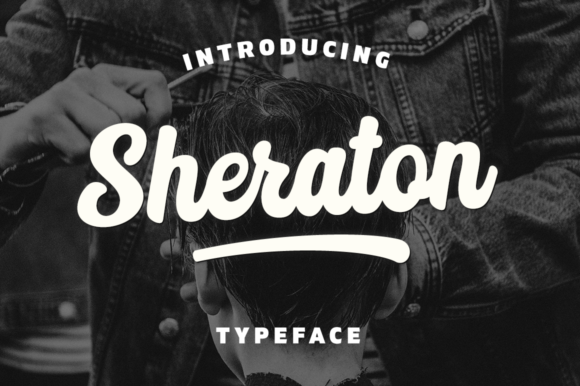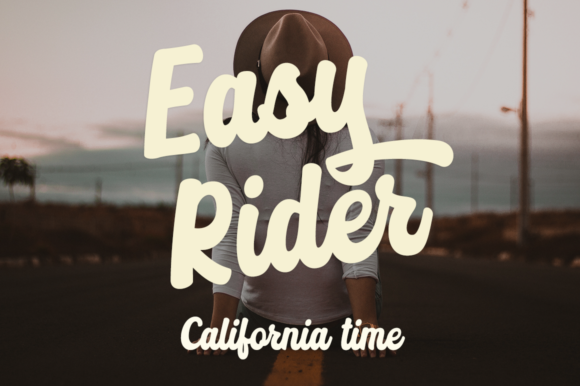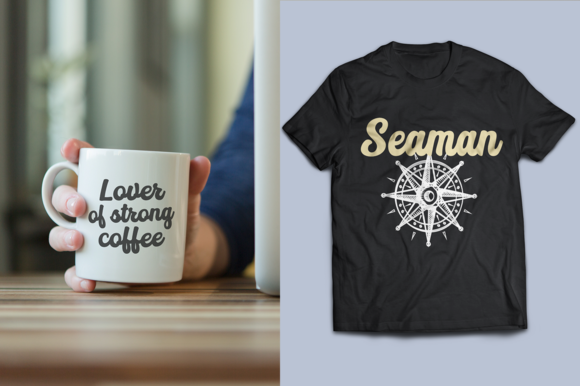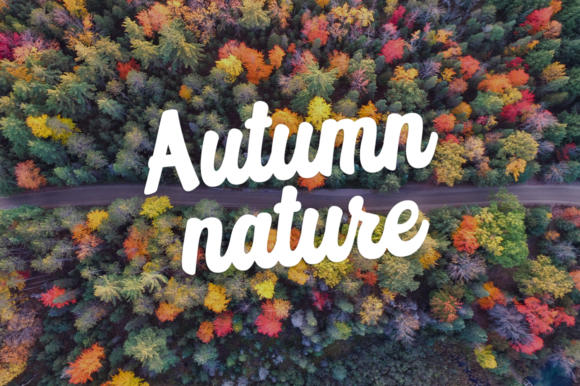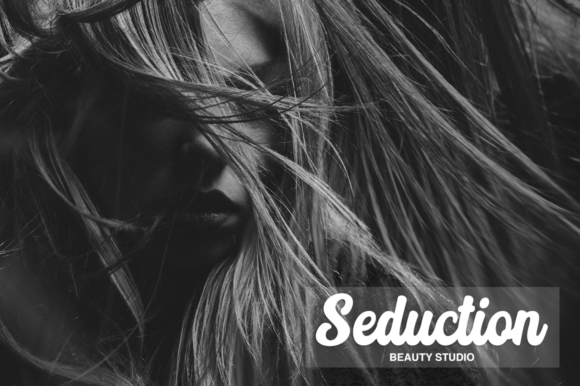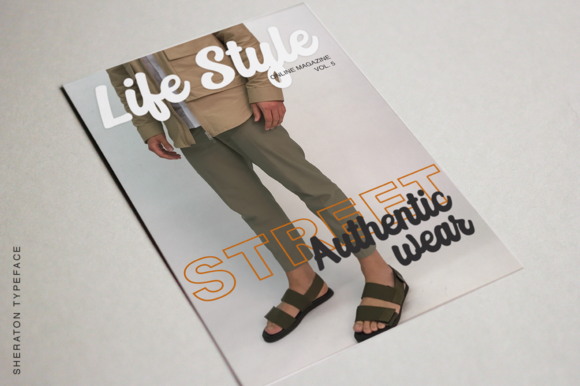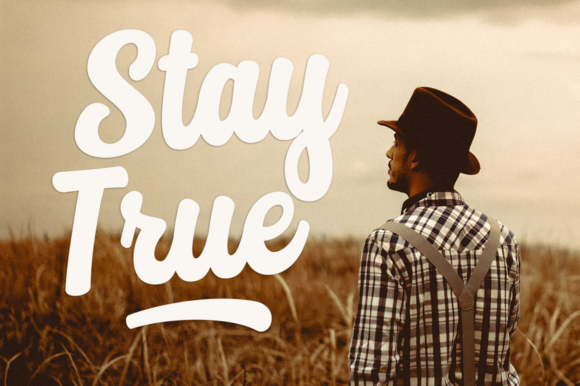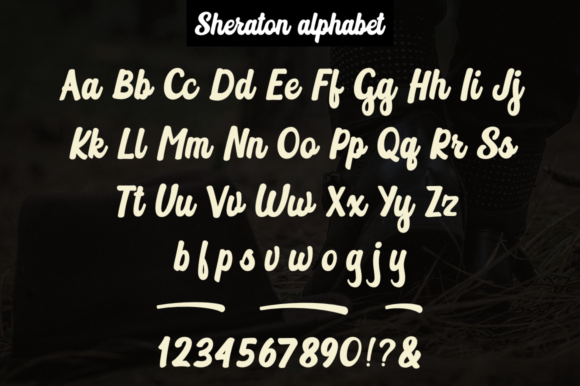
Sheraton Font
About Sheraton Font
The Sheraton is a new, fresh, handmade calligraphy font. It has bold letters with a good readability.
Ideal for branding and decorating your project!